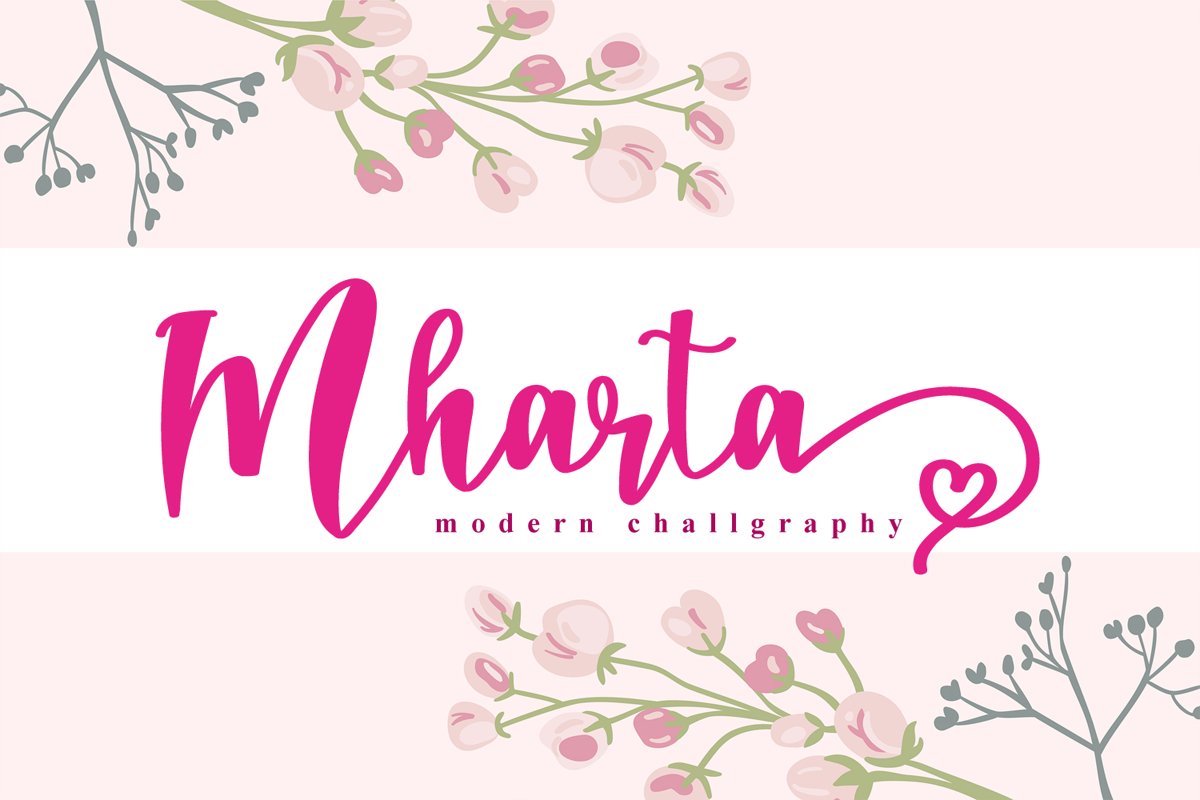
Mharta
mharta
Mharta is a delicate and timeless handwritten font. It looks lovely on wedding invitations, thank you cards, quotes, greeting cards, logos, business cards and every other design which needs a handwritten touch.
This font is PUA encoded which means you can access all of the glyphs and swashes with ease! It features a varying baseline, smooth lines, gorgeous glyphs and stunning alternates.